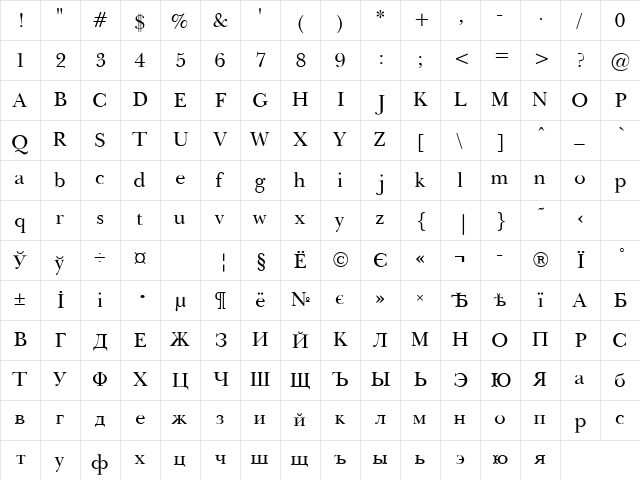
Baskerville Light
Design Context for Baskerville
Baskerville is a composed and adaptable typeface that performs quietly and consistently across a wide range of design contexts. Its slender proportions lend an understated elegance to any composition.